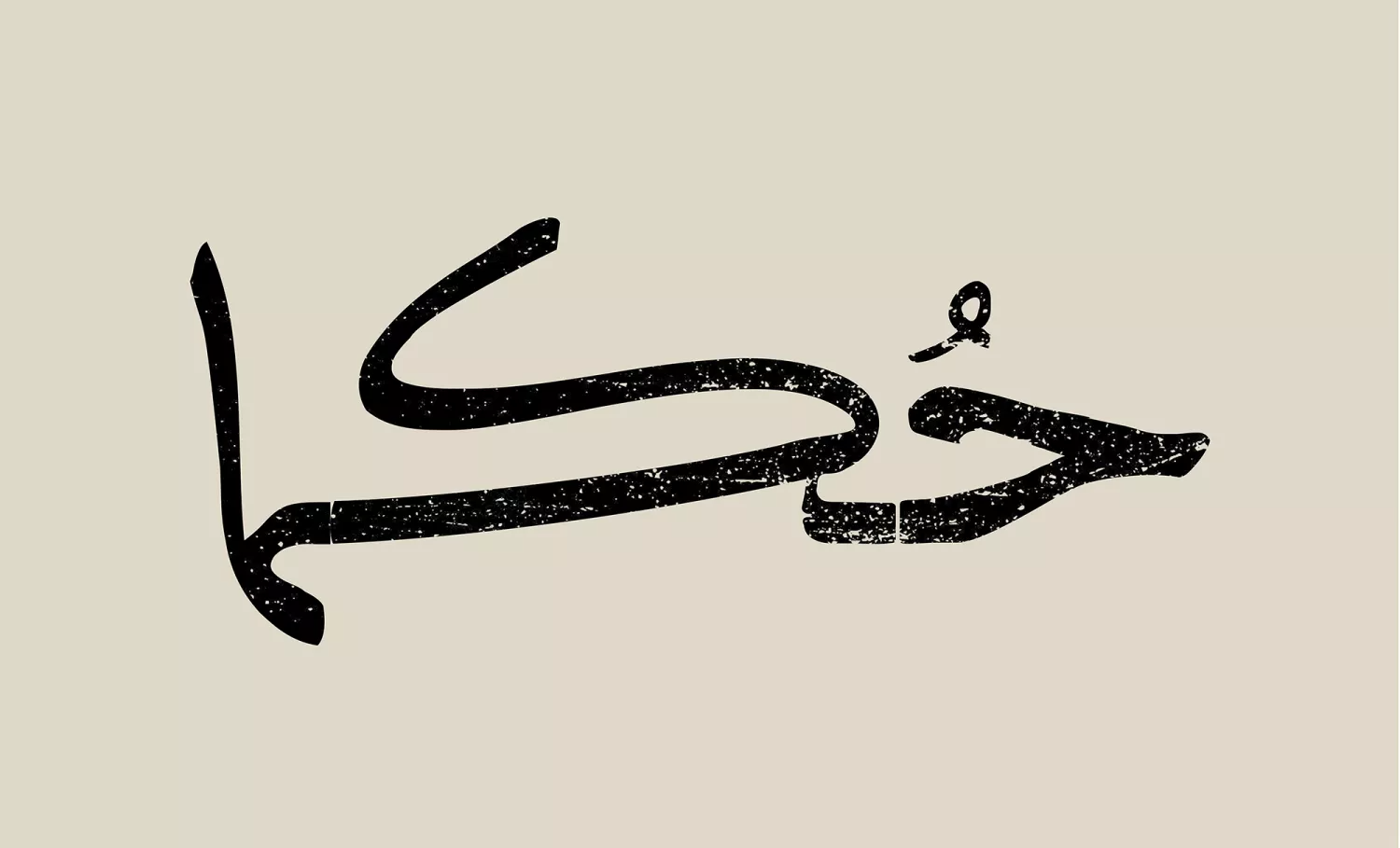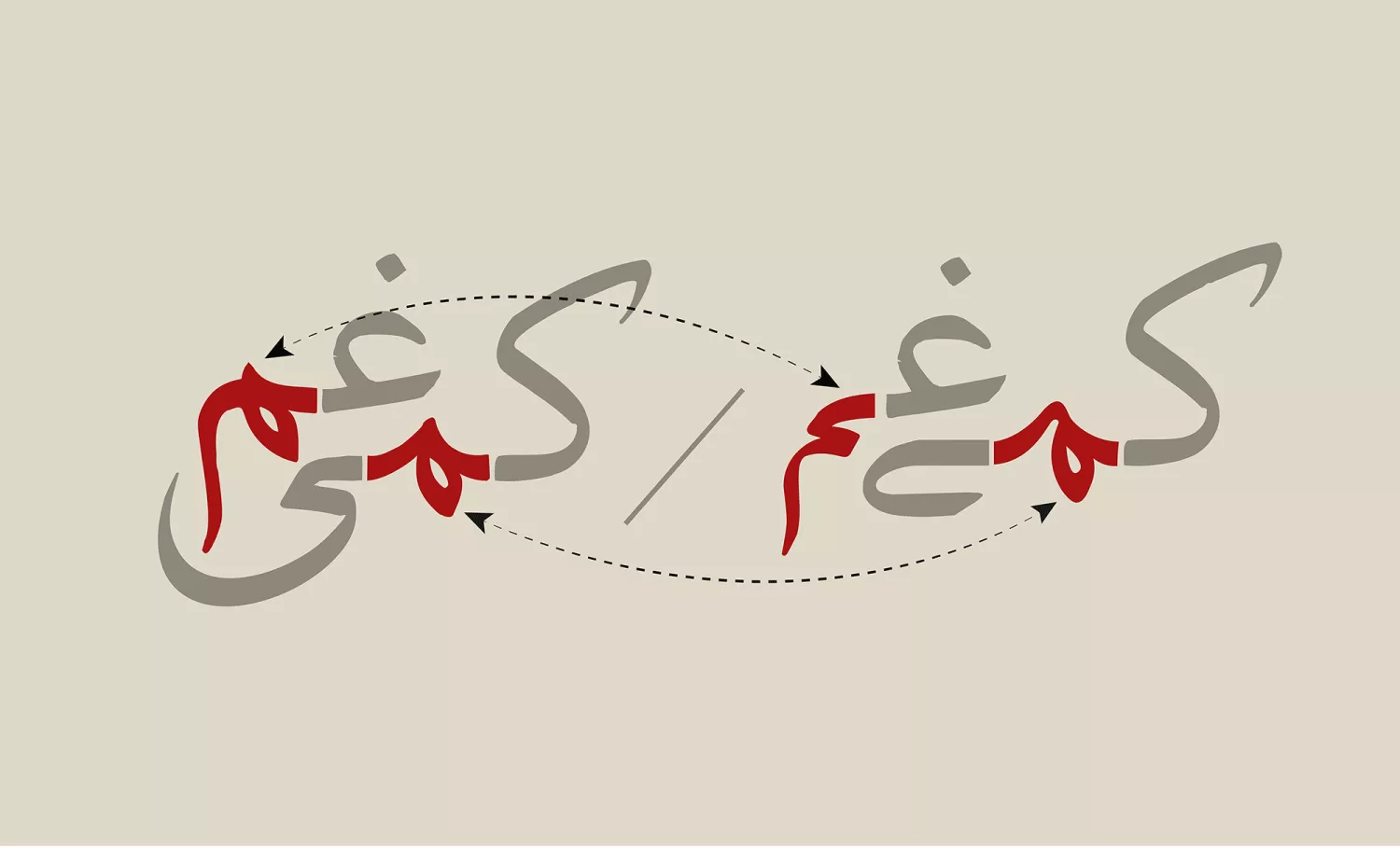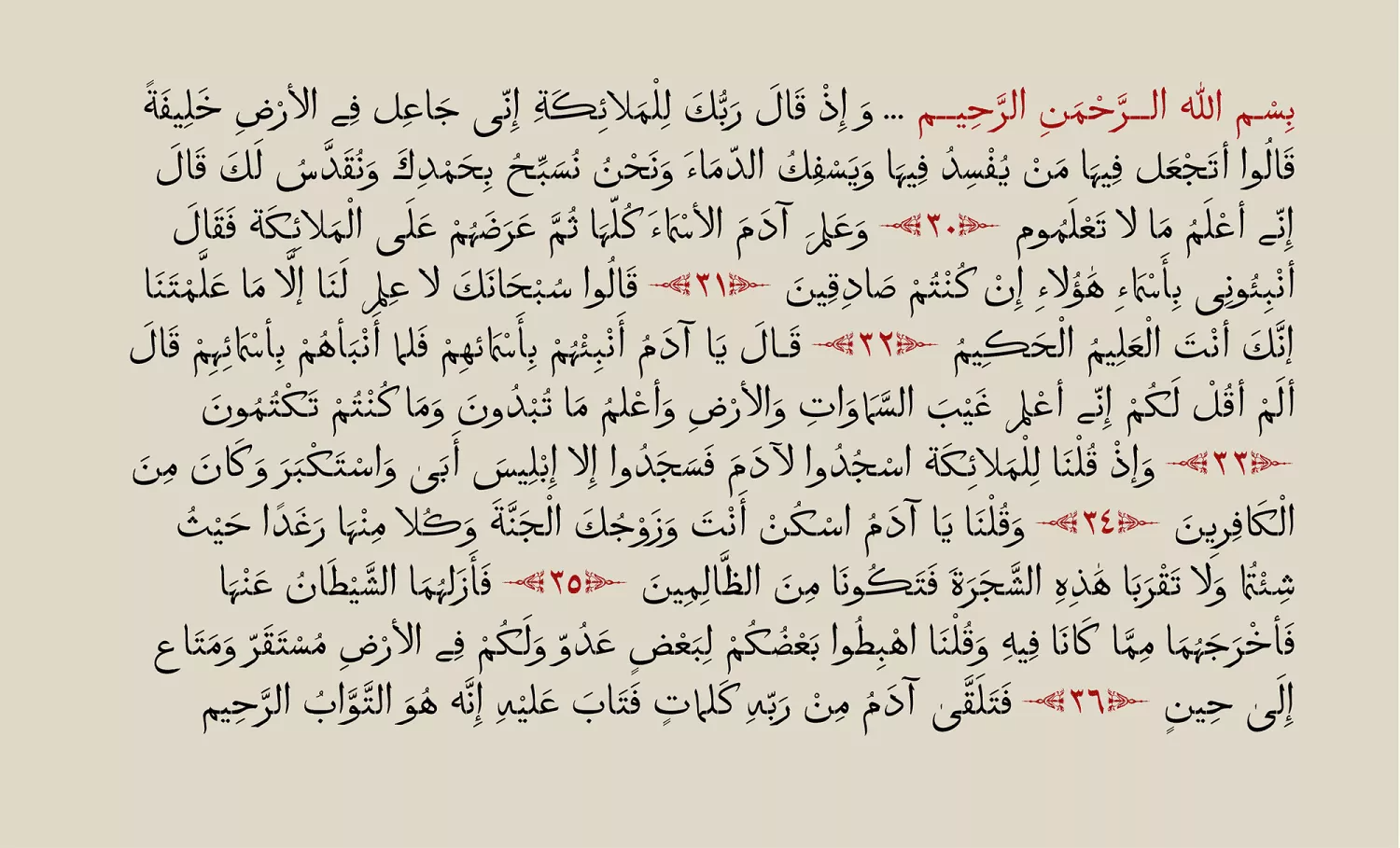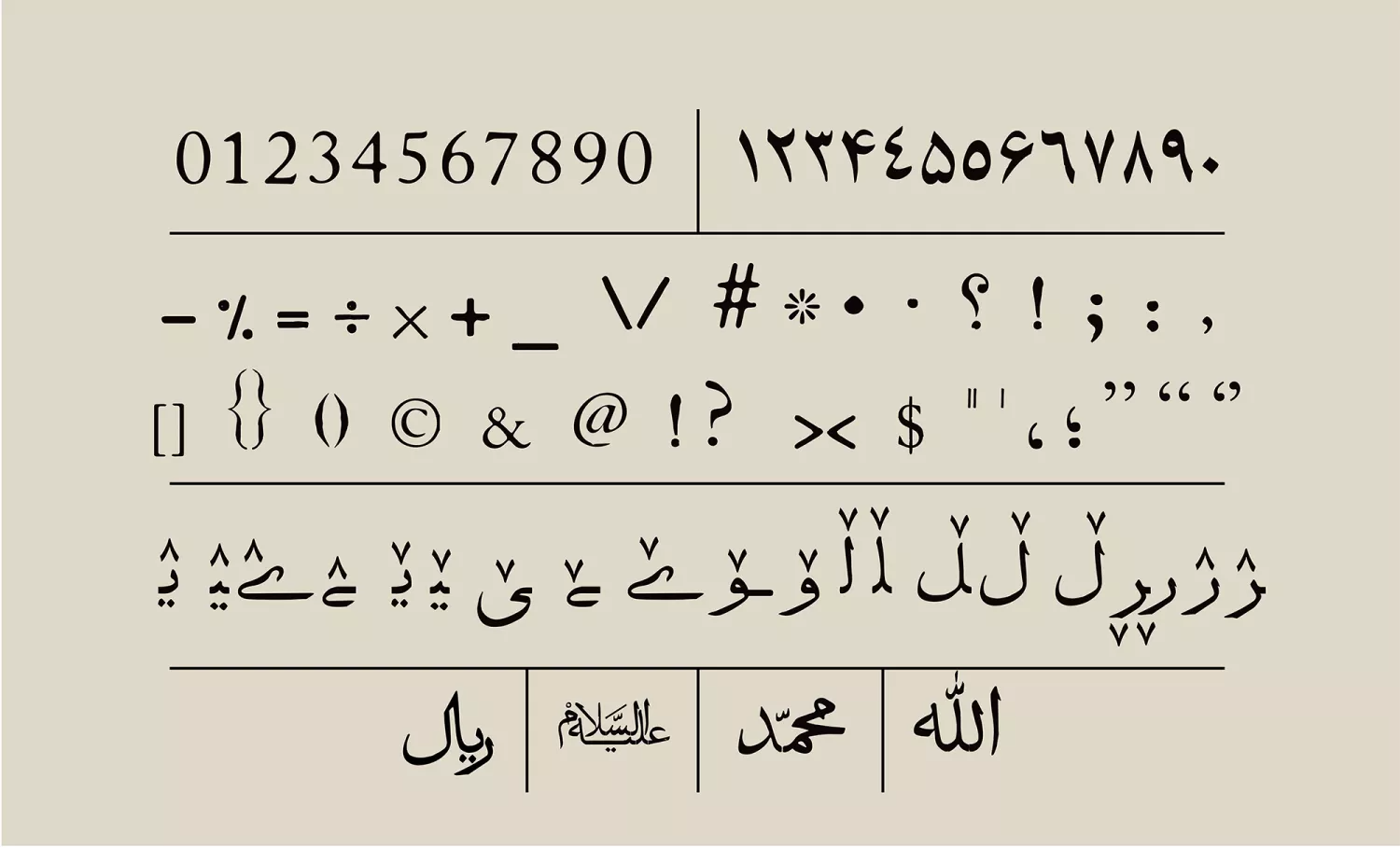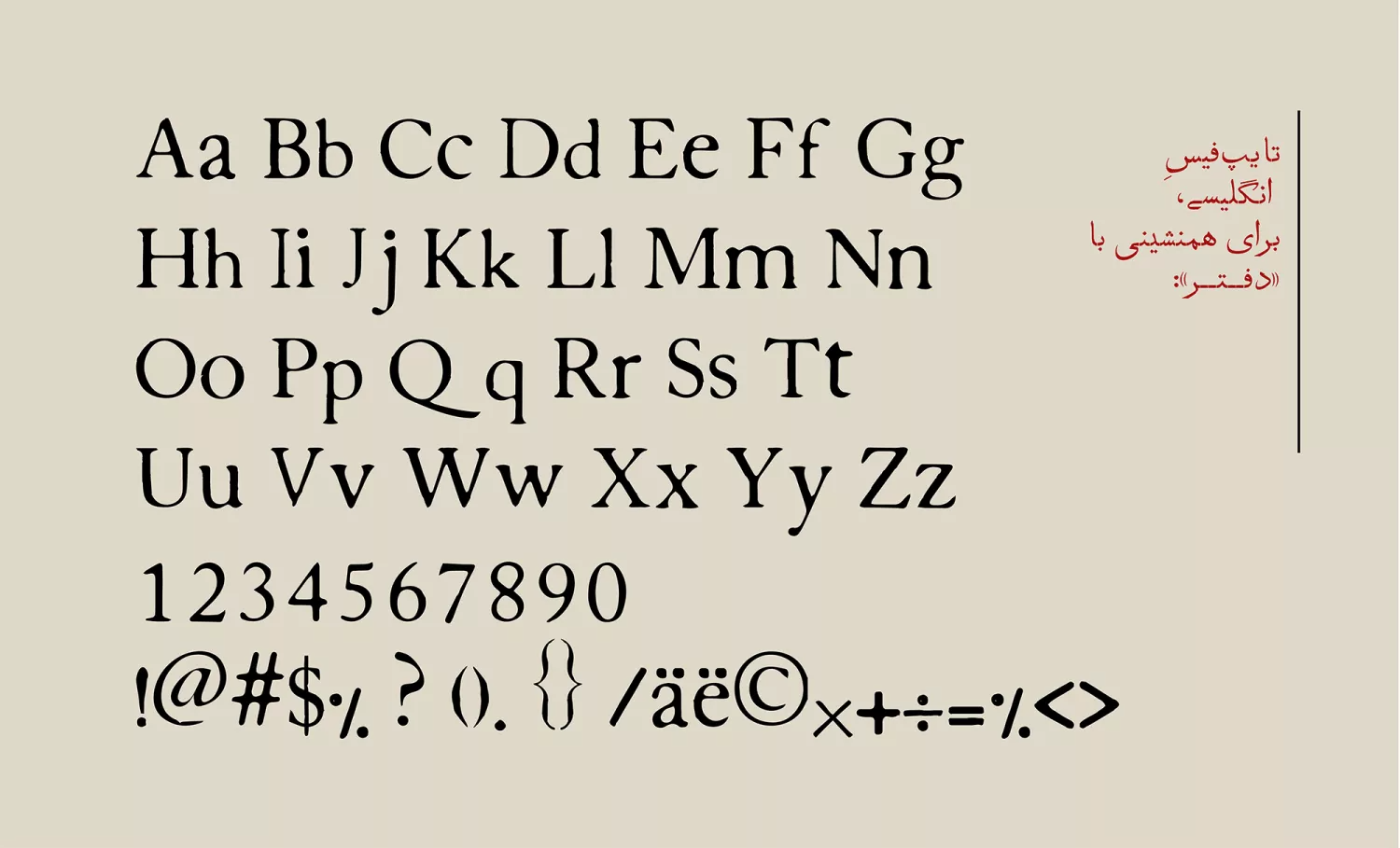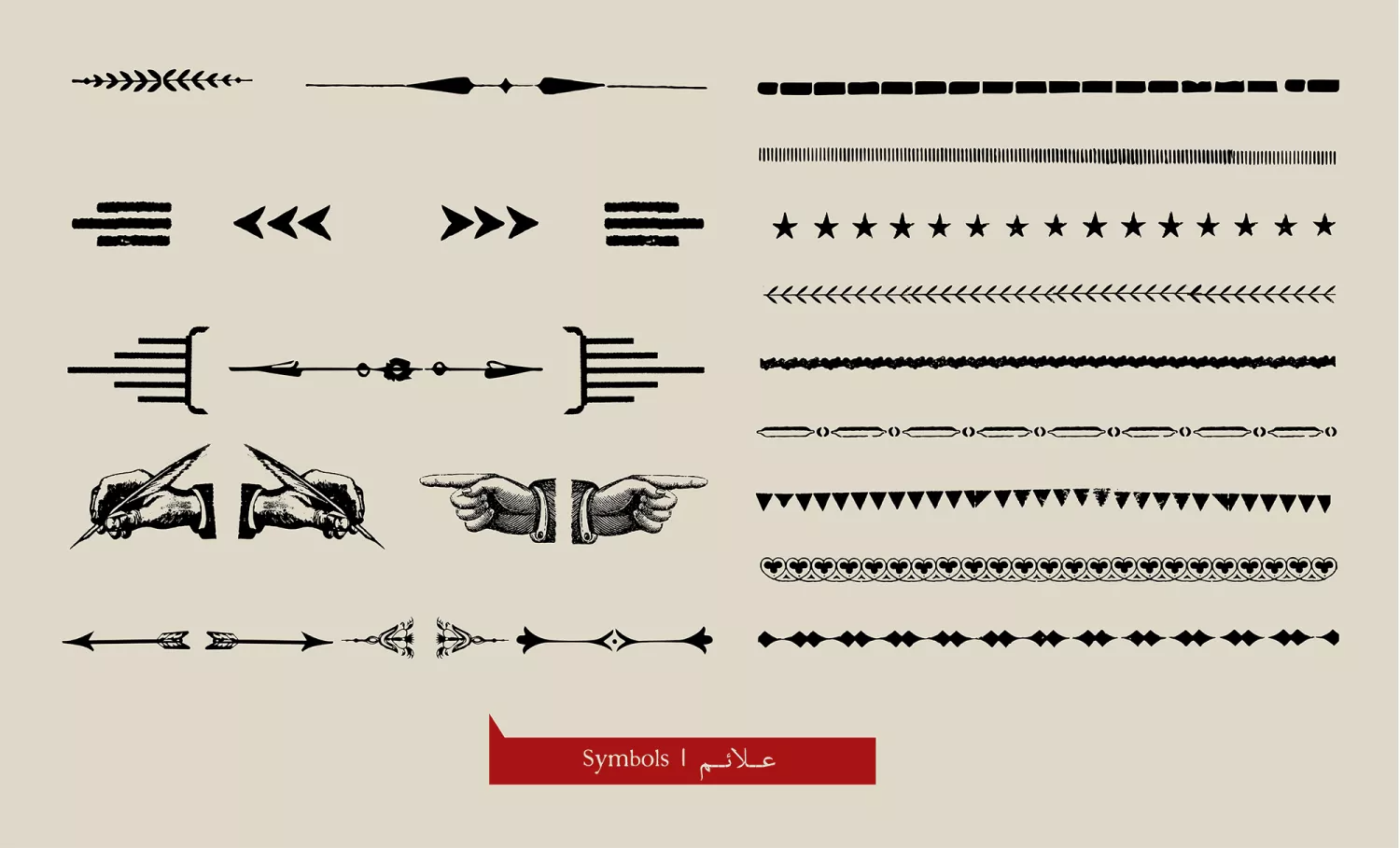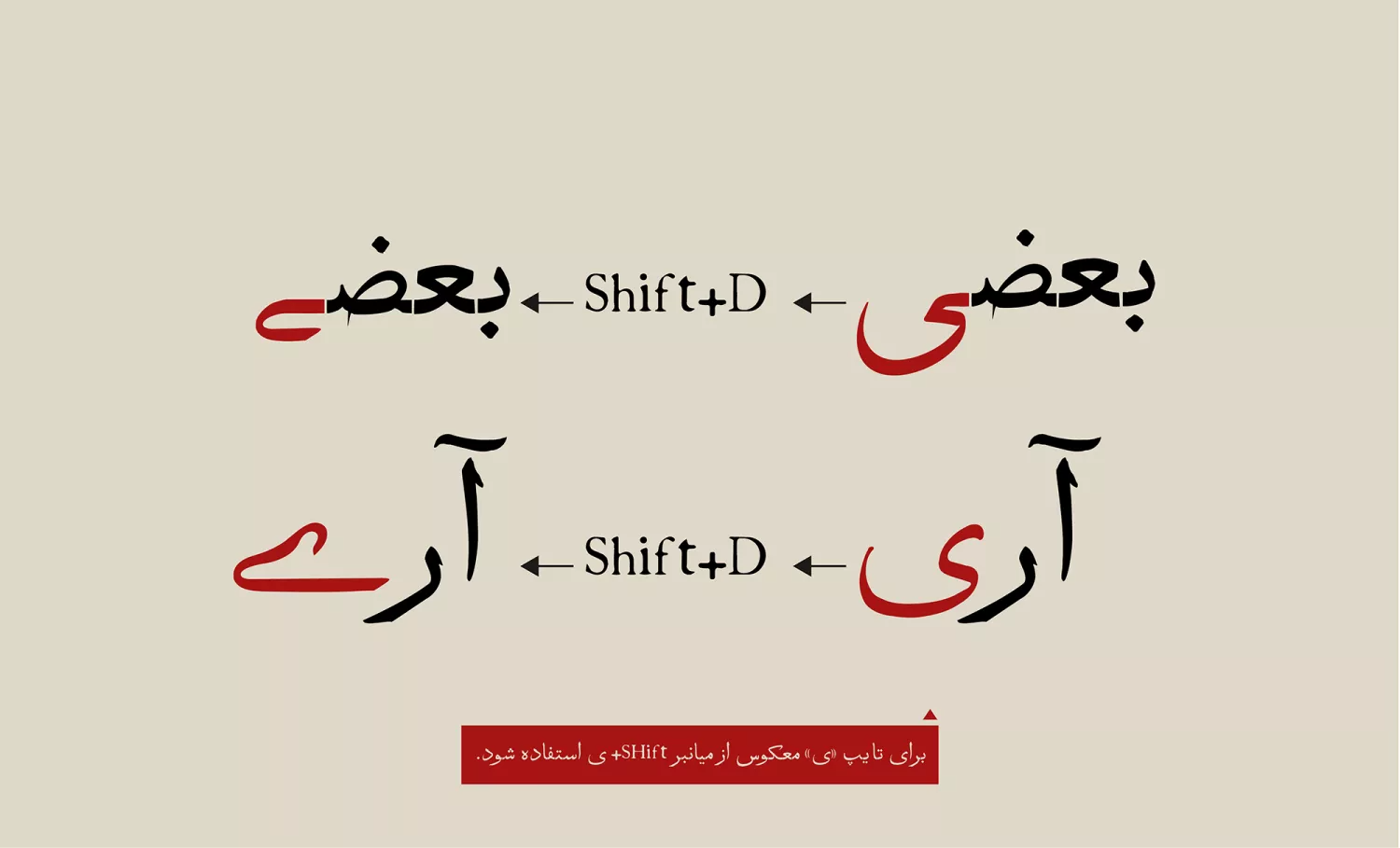
Daftar
Freshly old letters!
Graphic designers, web and digital designers, publishers, the press, set designers, artists, and all those who work with Persian fonts often face a shortage of typefaces that evoke a vintage or nostalgic mood.
For this reason, whenever there’s a need to convey an old-fashioned feeling through typography, we usually have to either give up on the idea or make do by tweaking existing fonts just to get the job done!
Daftar Arabic!
With the inclusion of diacritics and certain special ligatures, the Daftar Font is capable of supporting texts written in the Arabic language.
English Typeface
The English typeface chosen to accompany Daftar has been carefully modified, through the addition of texture, erosion, and adjustments in form, to closely resemble its Persian counterpart. This ensures that in bilingual texts, both scripts share a consistent tone and visual harmony.
Symbols
While typing, you can enhance the visual appeal of your design by using the symbols included in the Daftar Font character set.
These symbols can be manually inserted into your text through the Glyphs panel.
Daftar typeface was reconstructed, refined, and produced in 2017 at Daftar Studio under the supervision of Majid Kashani. A large number of old newspapers, books, magazines, and advertisements were used as sources to extract the letters and ligatures.
Daftar supports: Arabic, English and Persian